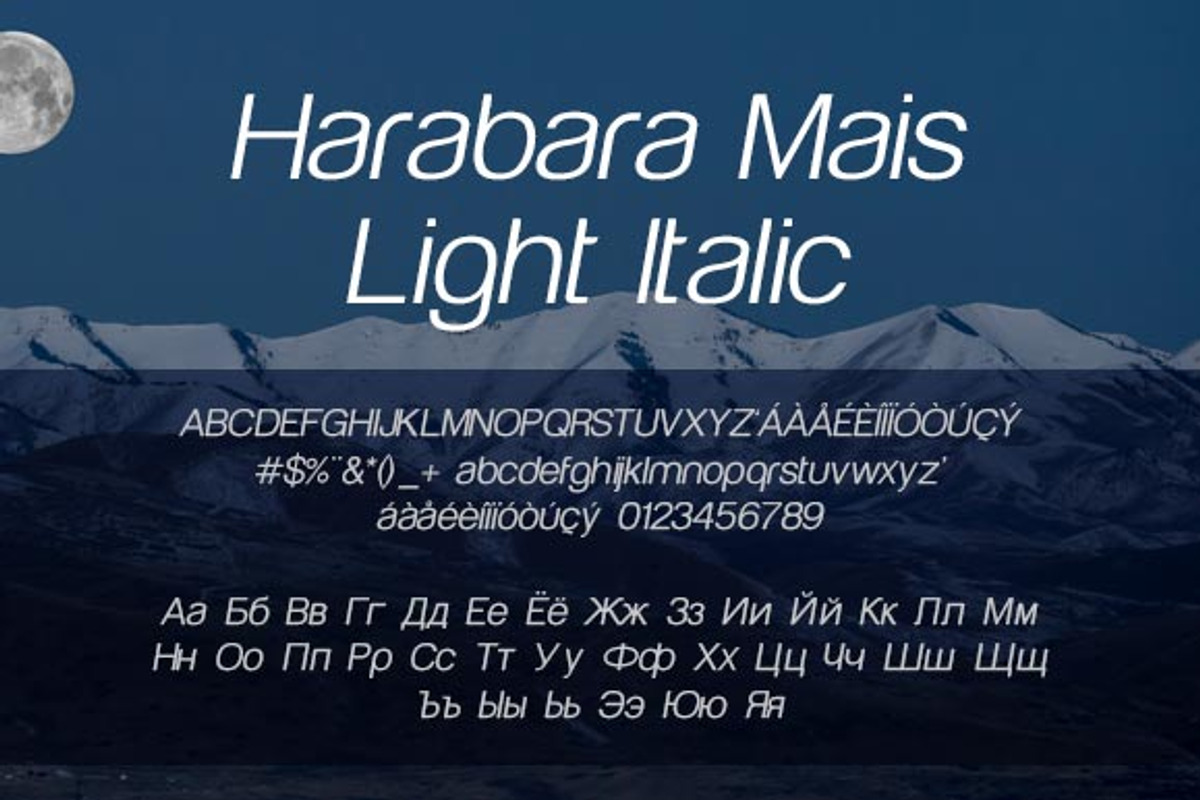
Harabara Mais Light Italic
This is not the font "Harabara" you still available on the internet. The Harabara font was released in 2009 only on the site Dafont, she had only had the bold weight and imperfections. The font Harabara mais, was developed in 2013 and is an updated version, had corrected the imperfections and your family includes: light, light italic, normal, italic, bold, bold italic, black and black italic. Downloadable format is Open type font (otf), the file is compatible with MAC and Windows. In Illustrator (AI), the menu text, the font Harabara more once installed, appears as one of the last displaying fonts.